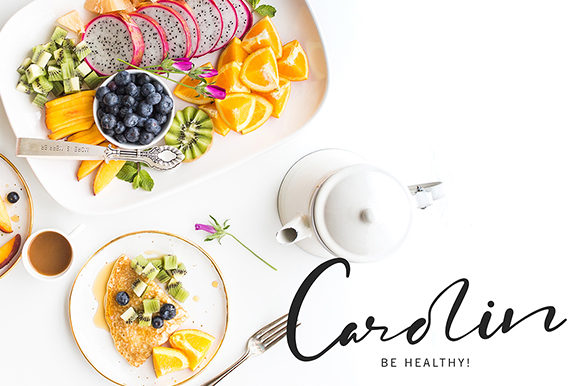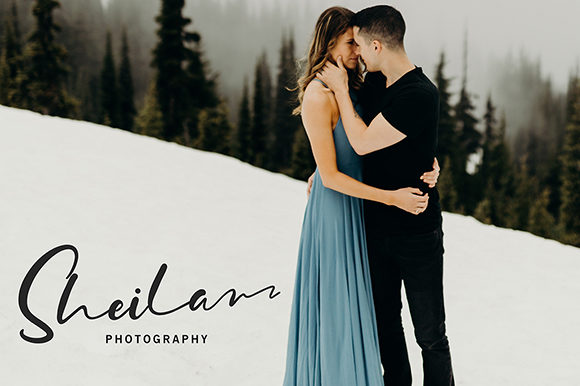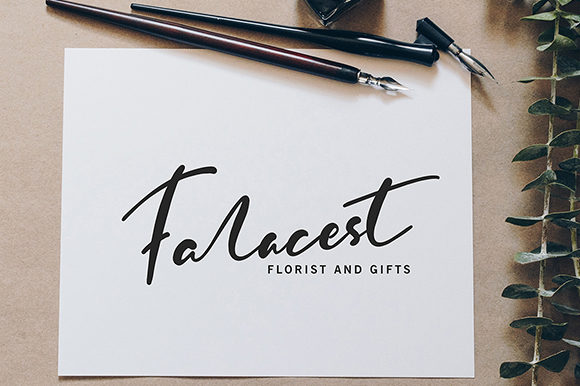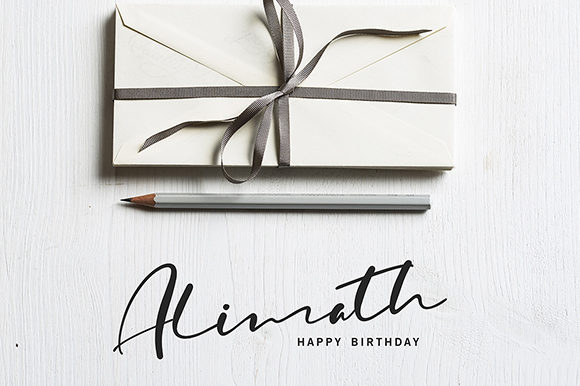
Mutimel Font
About Mutimel Font
Mutimel is a beautiful and light handwritten font with a unique twist. It will add an authentic spin to any design idea.